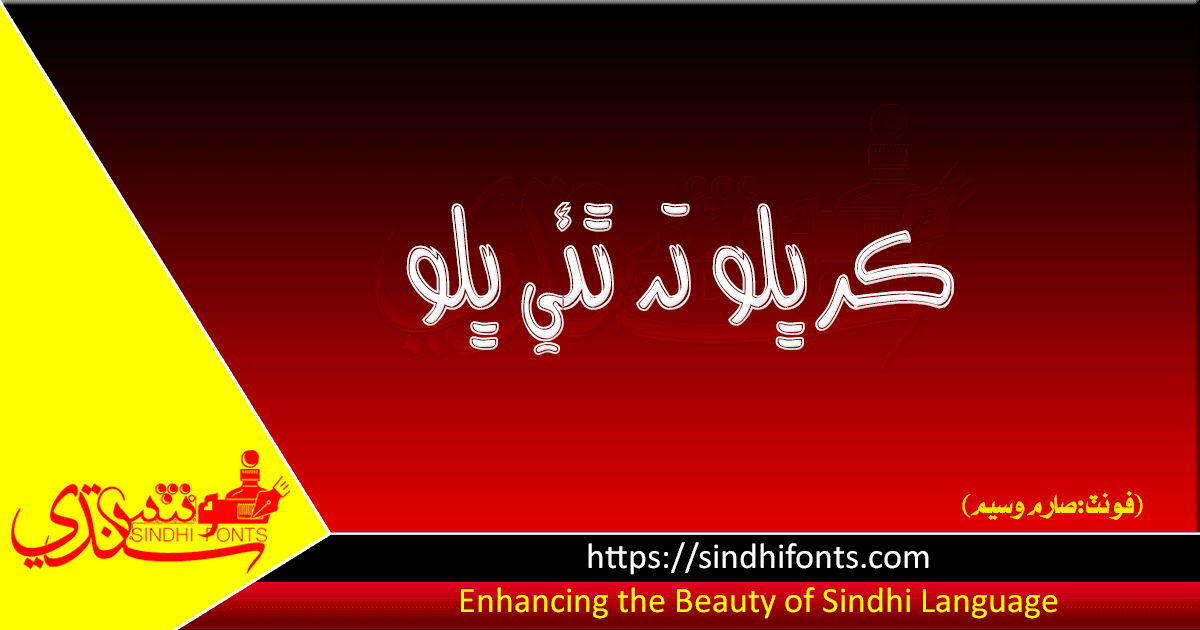
Sarem Waseem
Stylish Sindhi font Sarem Waseem for your writings particularly for the Headings. It confirms the latest Unicode standards also. Sarem Waseem is free of charge to download and install on your computer.